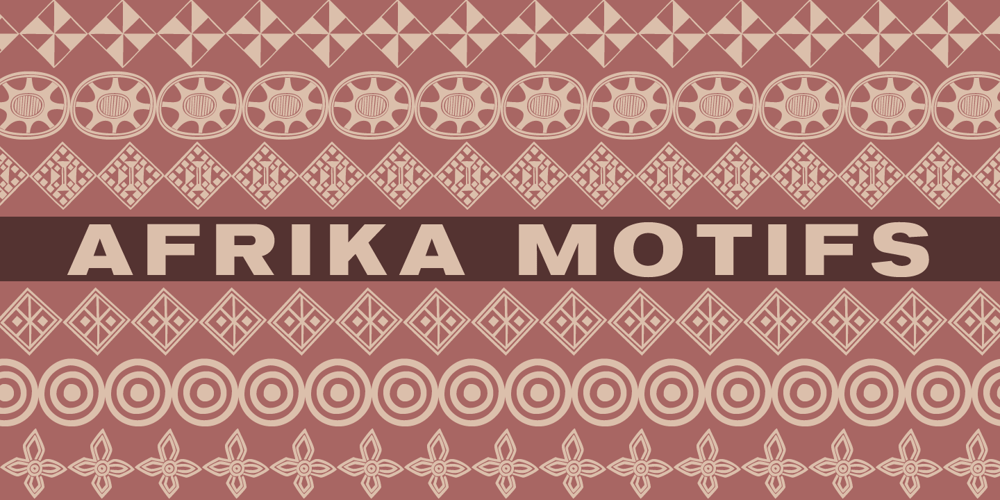
Afrika Motifs Font Family was designed by Jason Castle and published by CastleType. Afrika Motifs contains 1 styles and family package options. A collection of over 50 border patterns based on geometric motifs from various African tribes, including the Ashanti, Bushongo, and Zulu. Use for accents on stationery, greeting cards, etc.